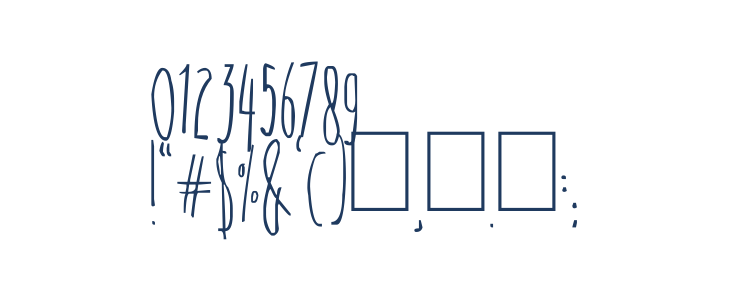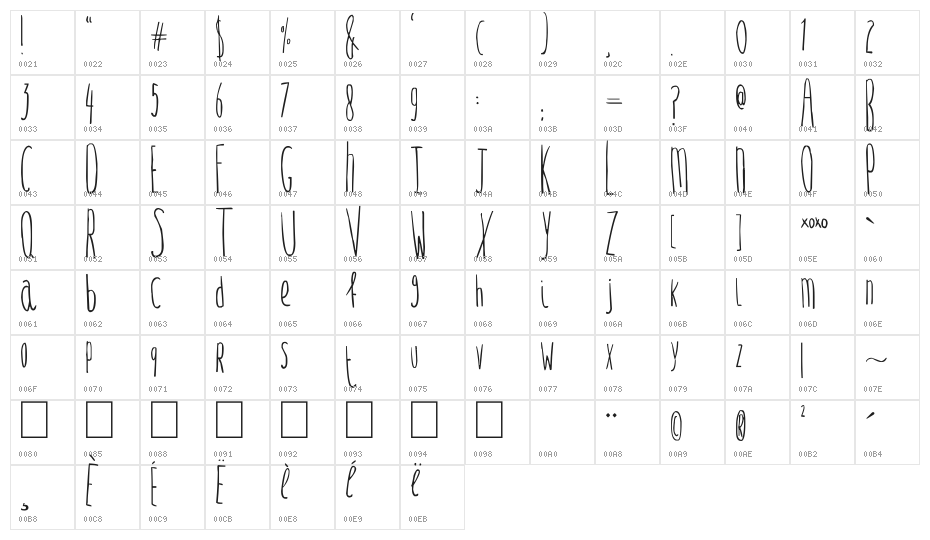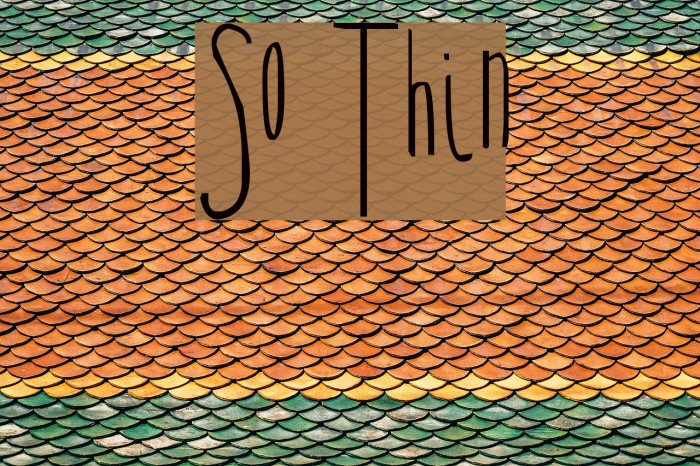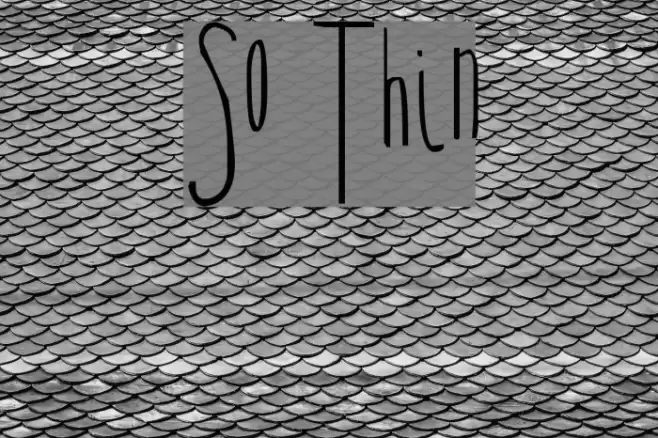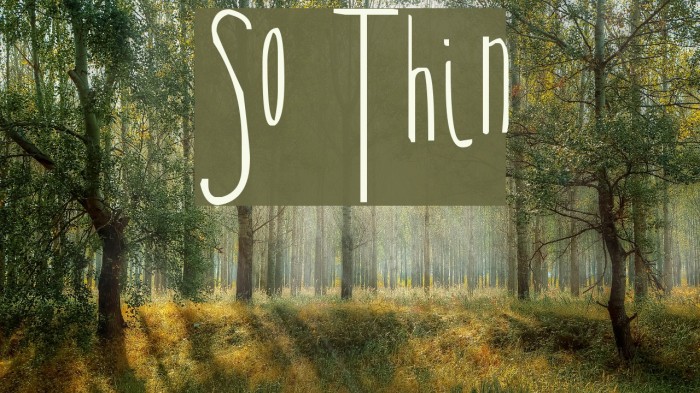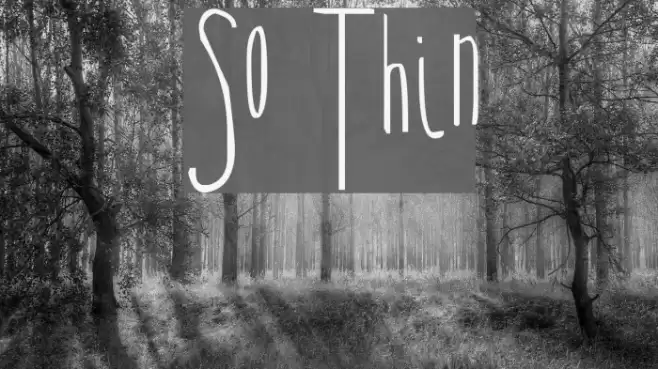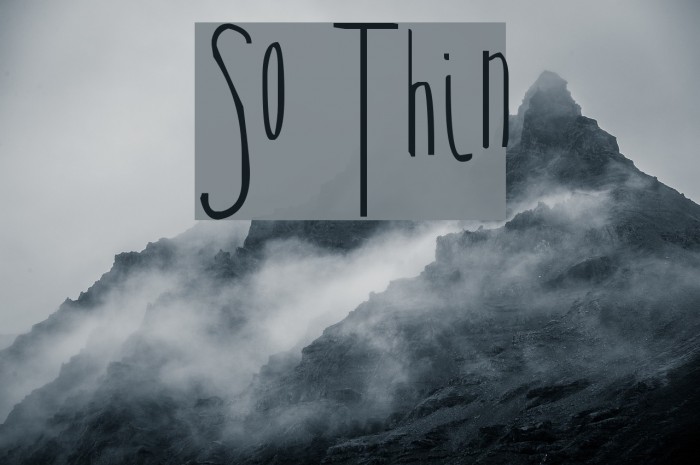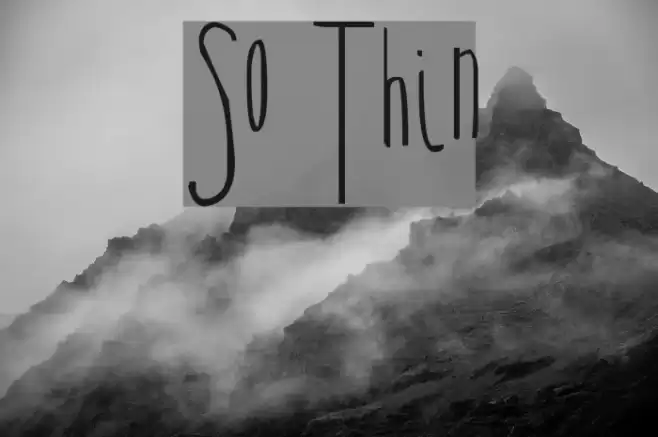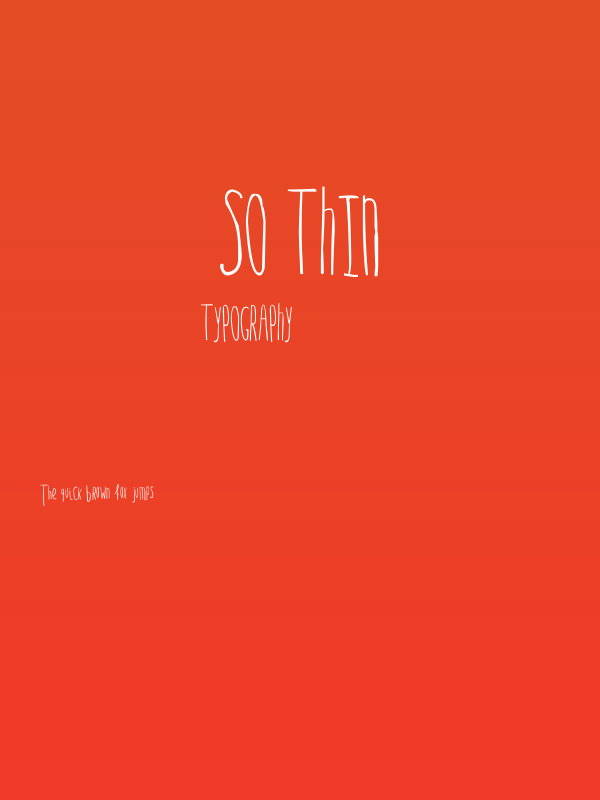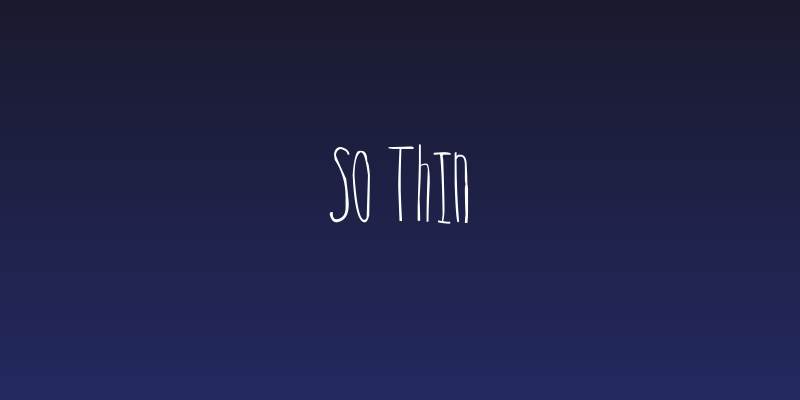
So Thin Font
So Thin Description
This font features an ultra-thin and elongated design, characterized by its tall and narrow letterforms. The strokes are consistent in width, giving it a sleek and modern appearance. The uppercase letters are particularly elongated, while the lowercase letters maintain a similar height, creating a uniform look. The numerals and special characters follow the same thin and tall style, ensuring consistency across all characters. This font's minimalist and contemporary design makes it suitable for modern and stylish applications.
| Proposed Projects | Ideal for fashion magazines, modern branding, minimalist posters, and elegant invitations. |